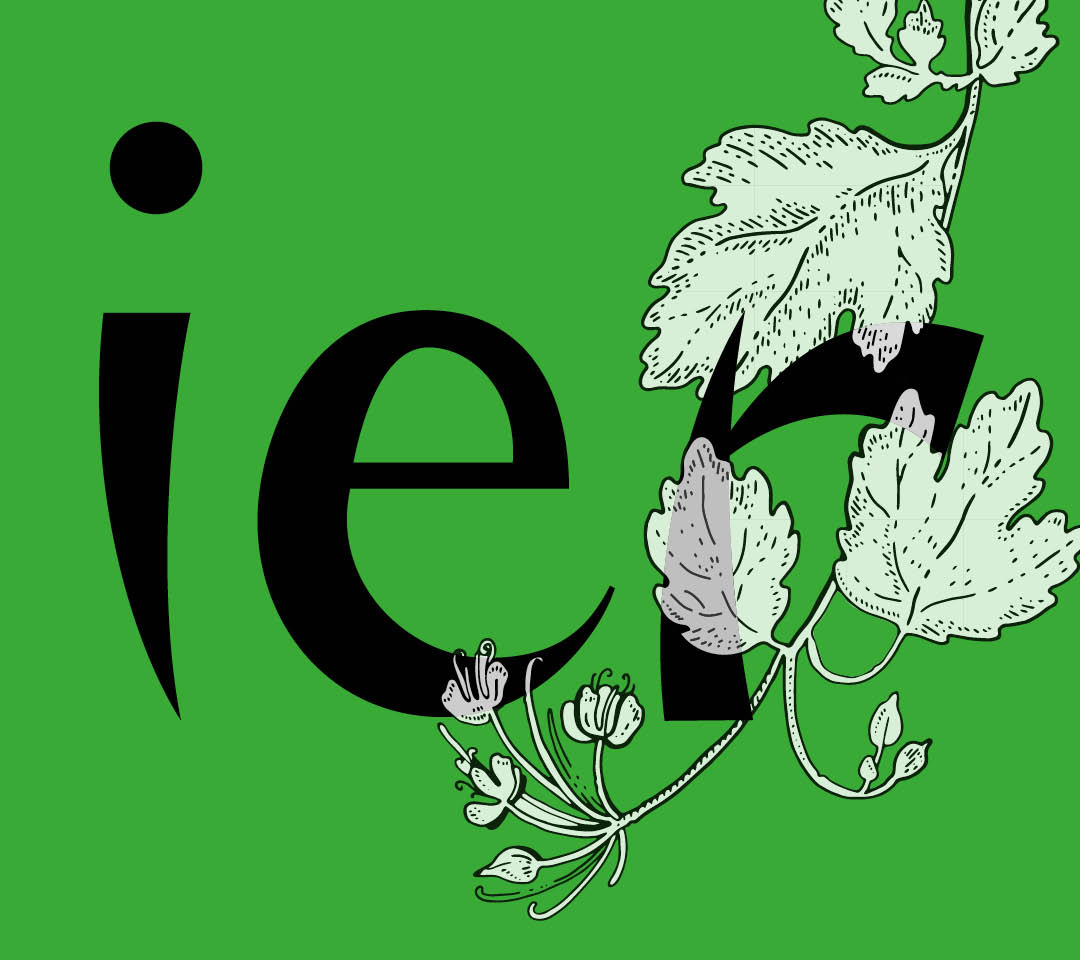
Jardinier is designed by nature, inspired by London’s Walworth Gardens. This small communal garden is a hidden gem contrasted by the concrete jungle that surrounds it. This modern sans serif typeface aims to capture this through a friendly, youthful display, that uses organic letterforms that replicate elements from the natural world. Its plantation style strokes are casual and freeing, giving a charming sense of imperfection in its almost handwritten style. Its distinctive feature is the the tapering stems that transcend from thick to thin. Jardinier can be utilised in various ways, but is best suited to branding; logos, packaging design, lifestyle products and sustainable design.